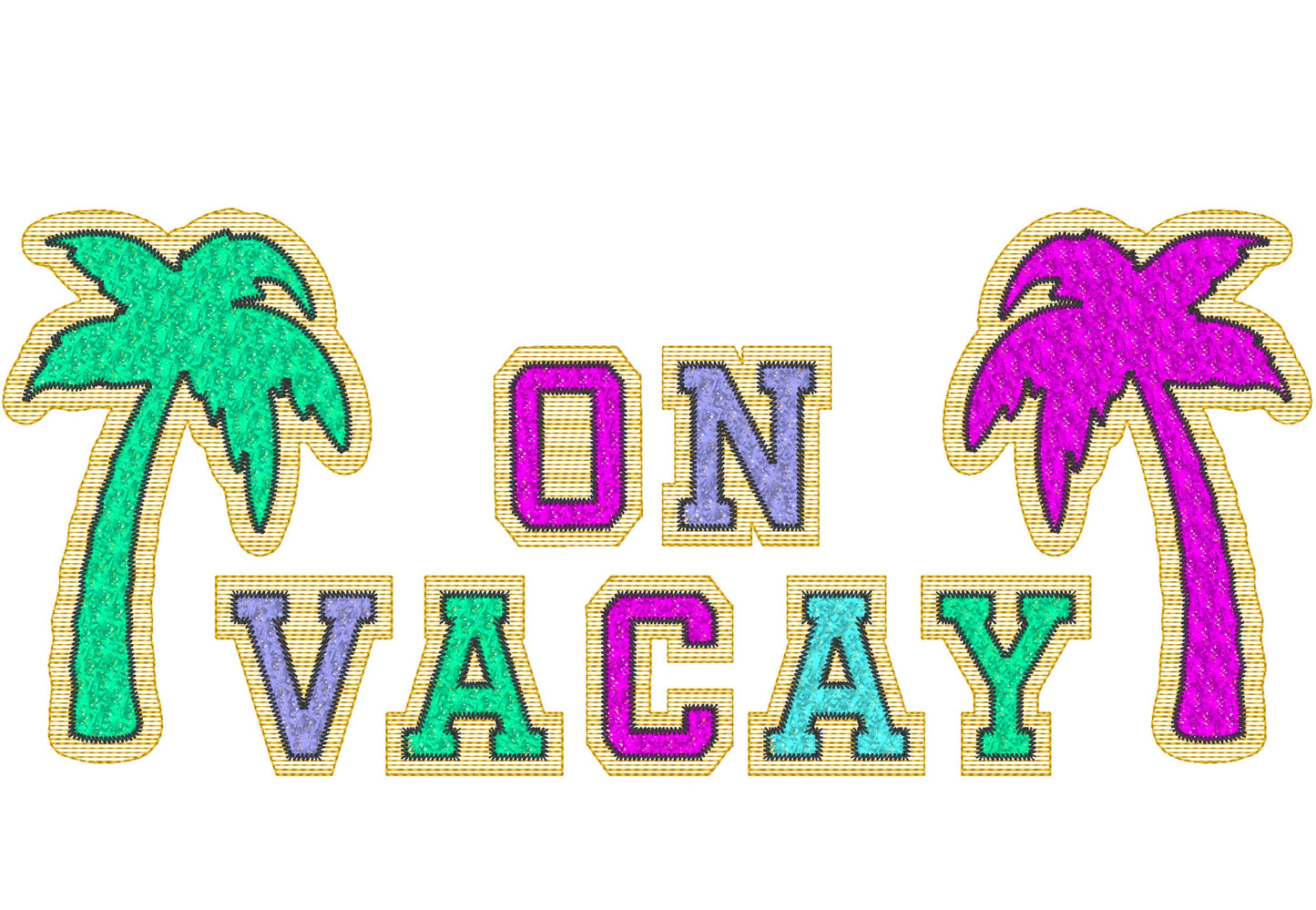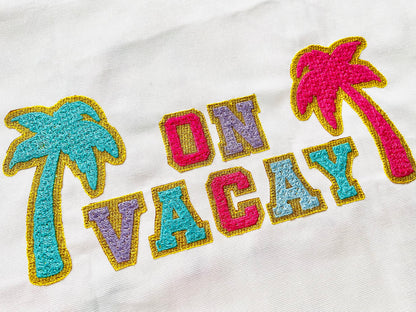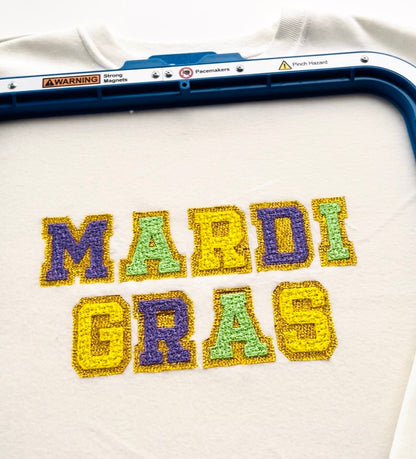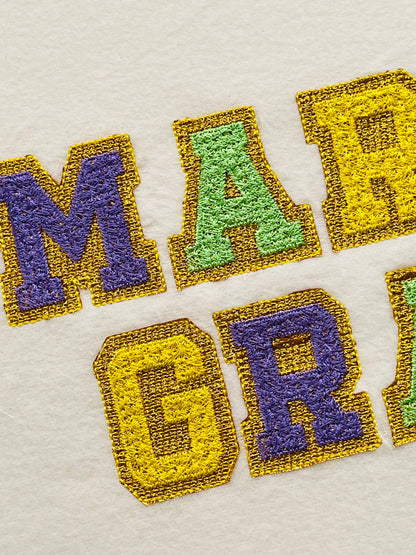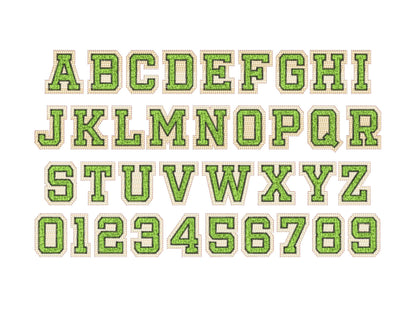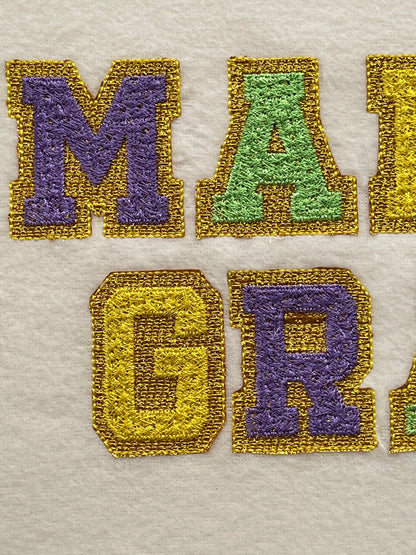
Or click to open the linkA mini varsity font with a faux chenille look and a glitter vinyl layer, plus palm trees. Fun for summer shirts, caps and bags.